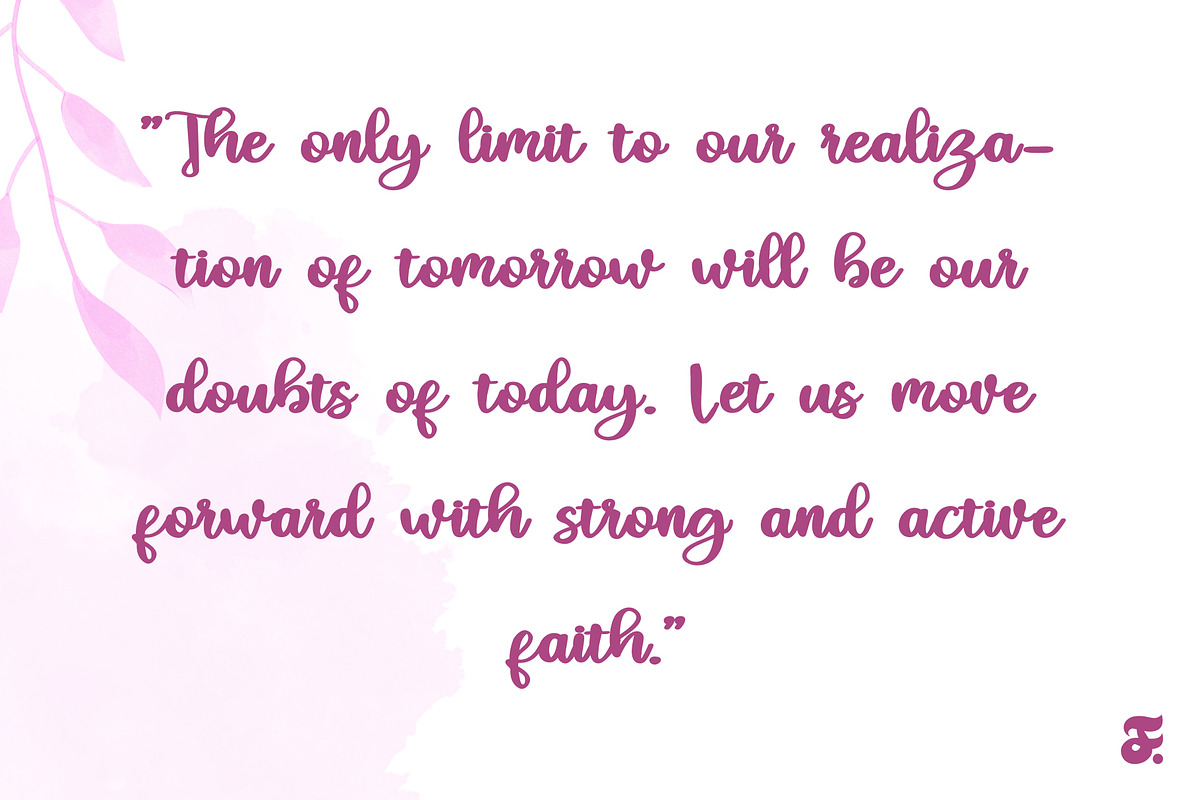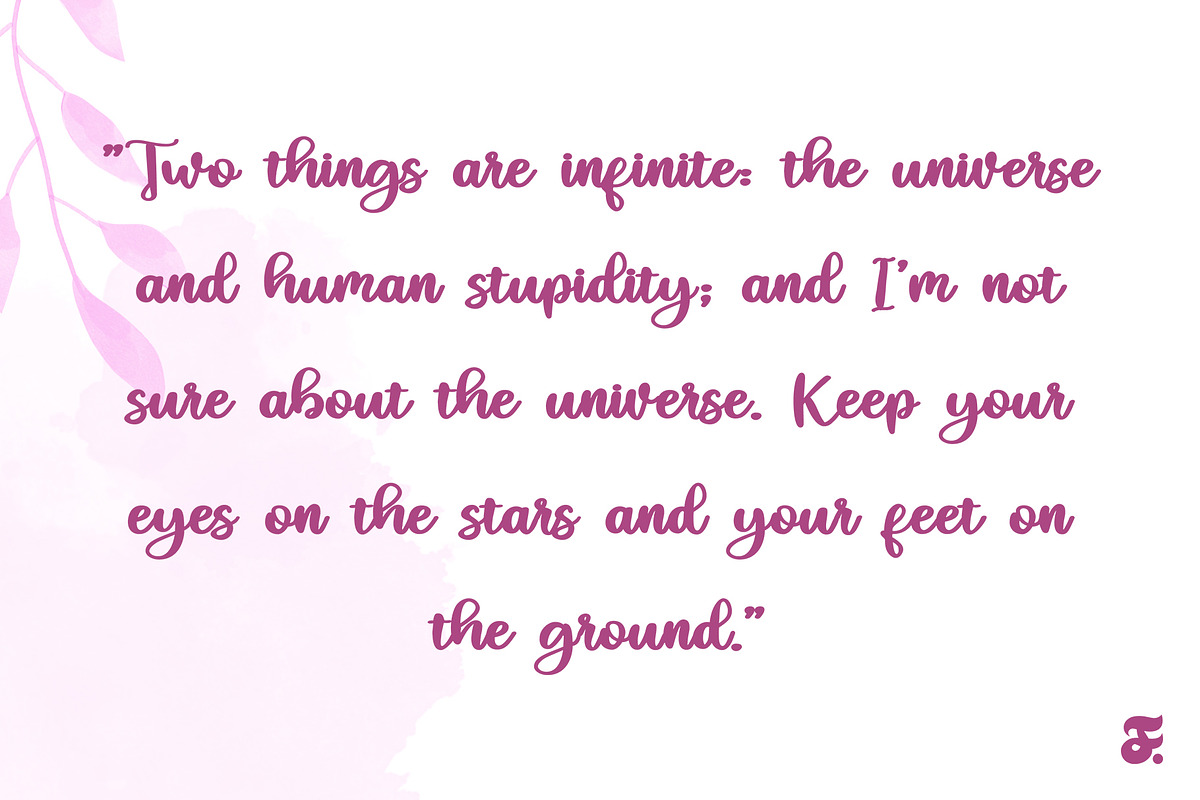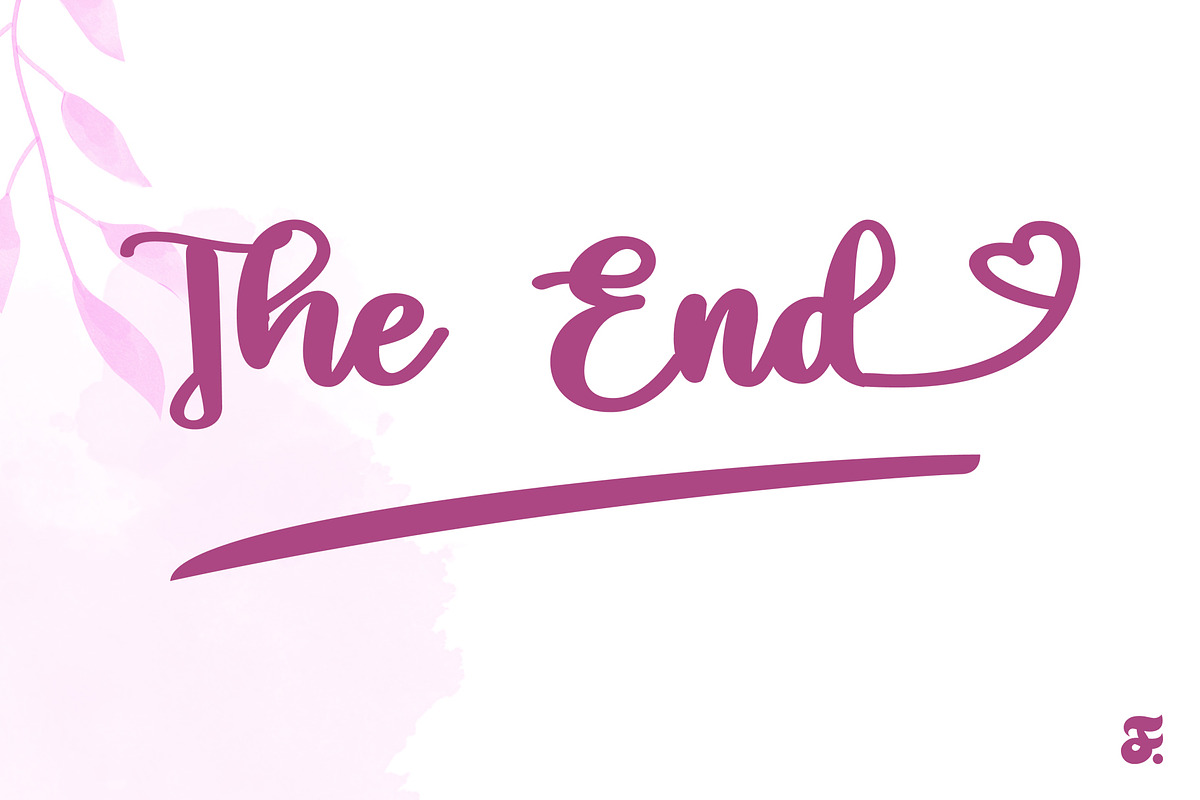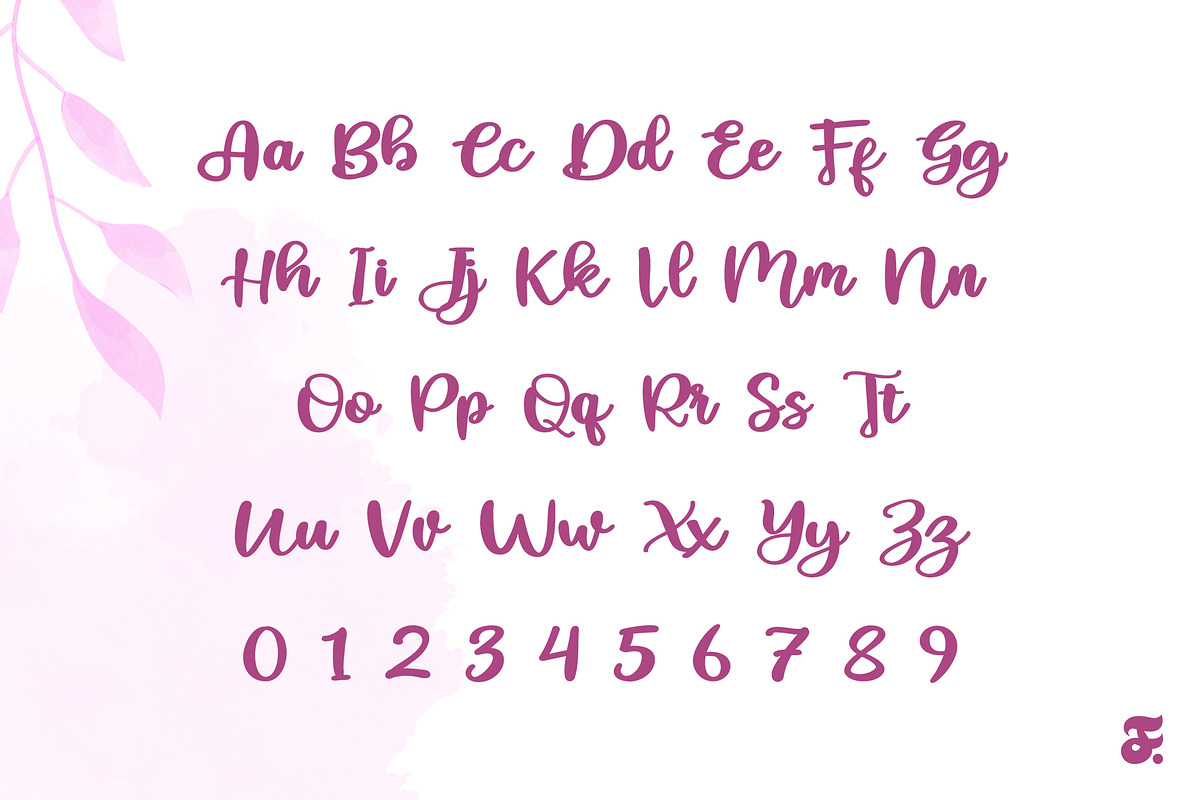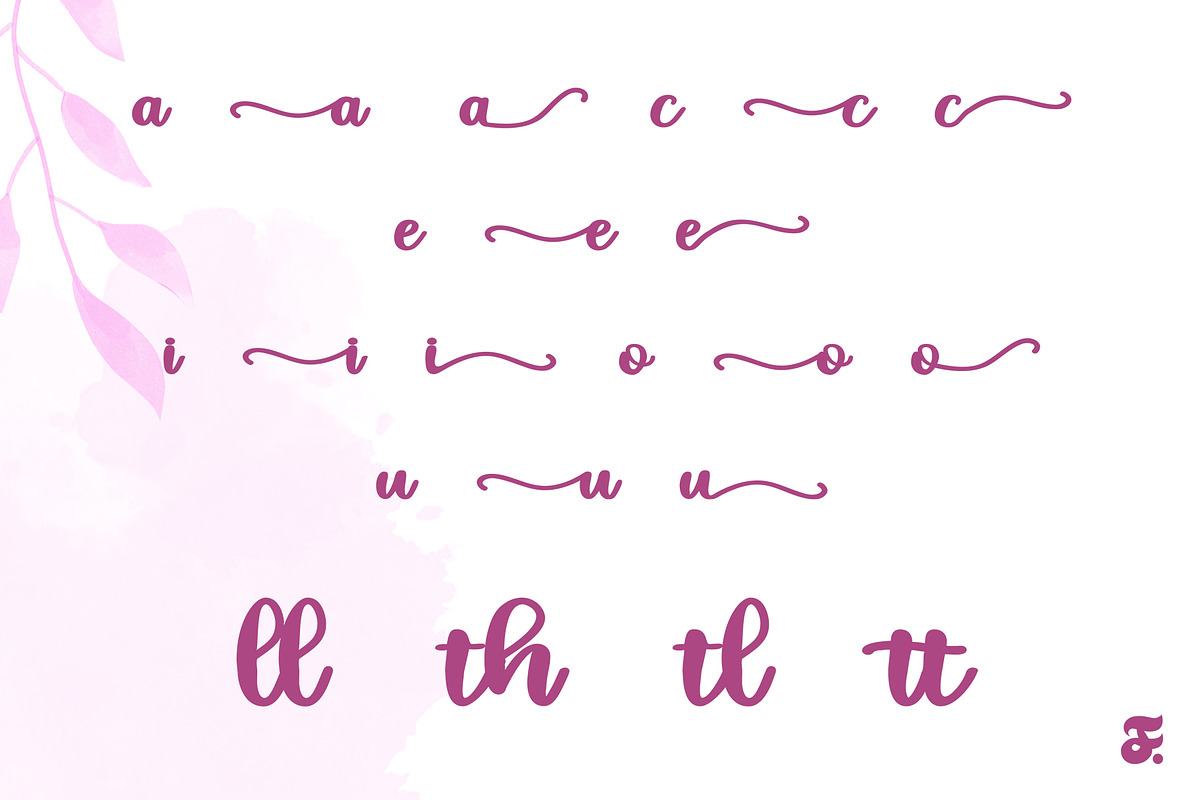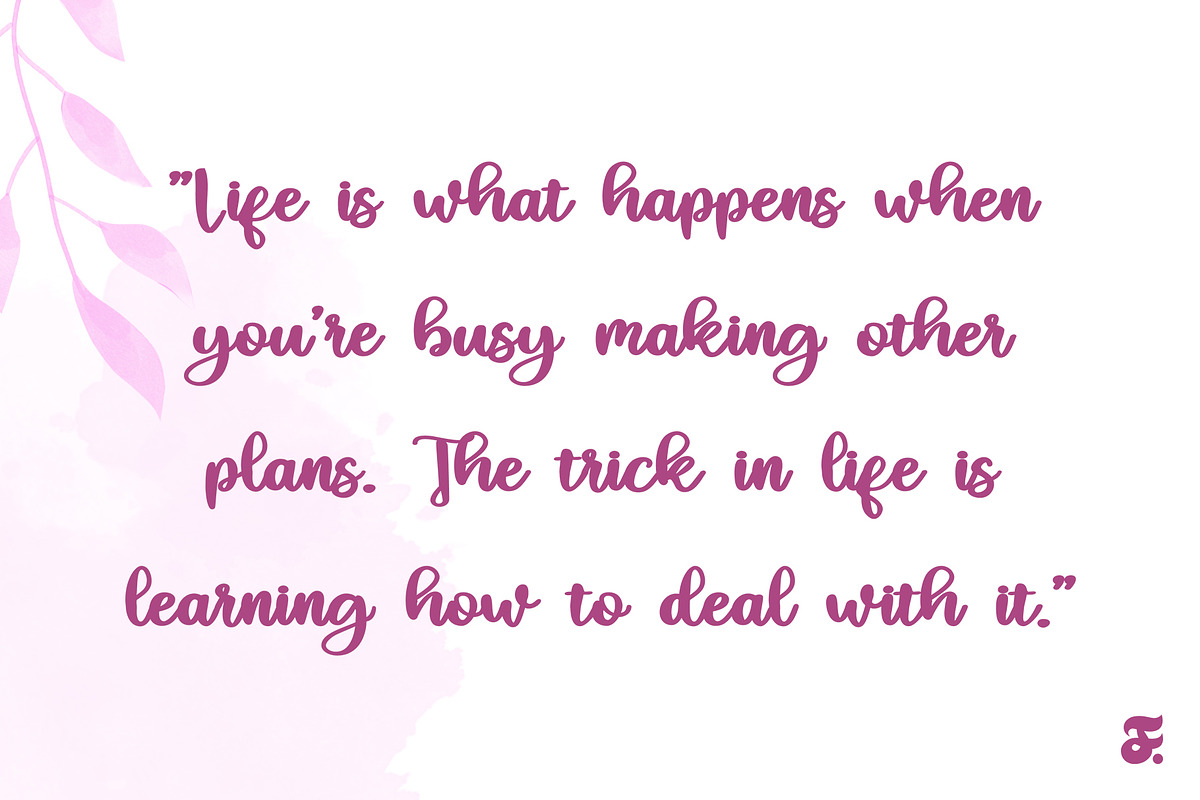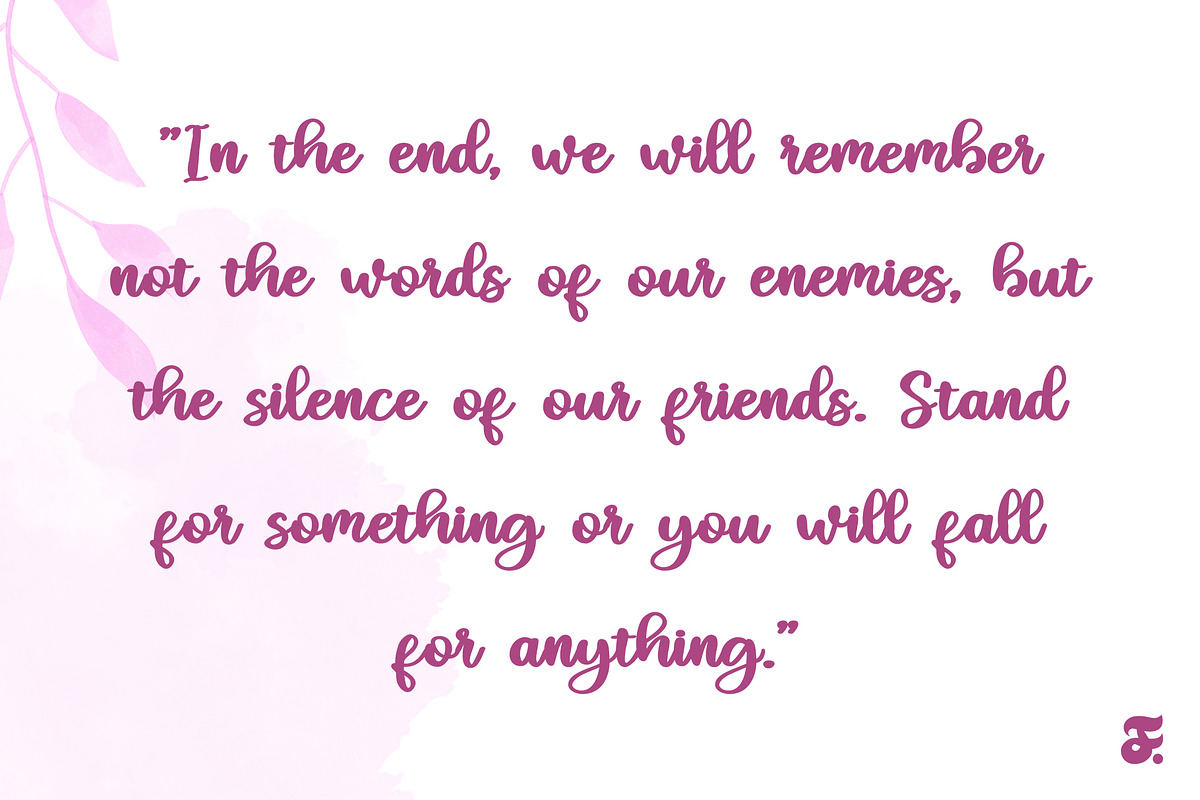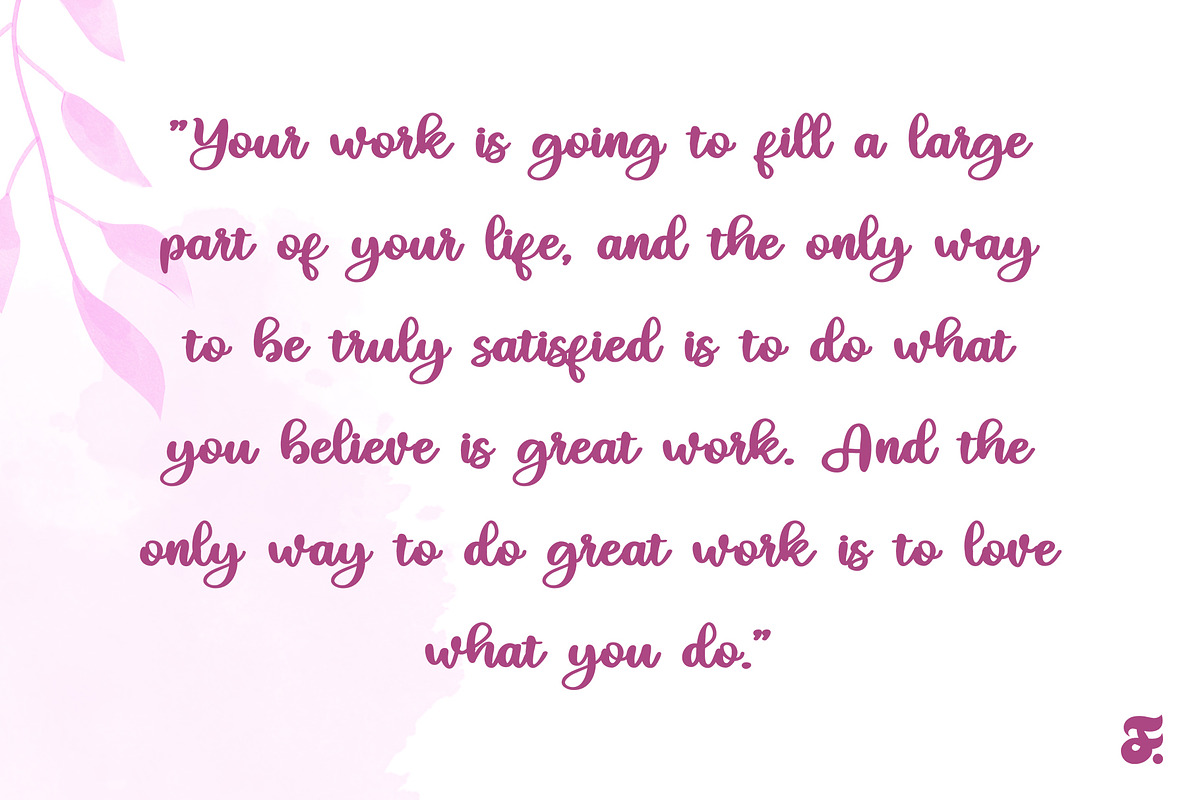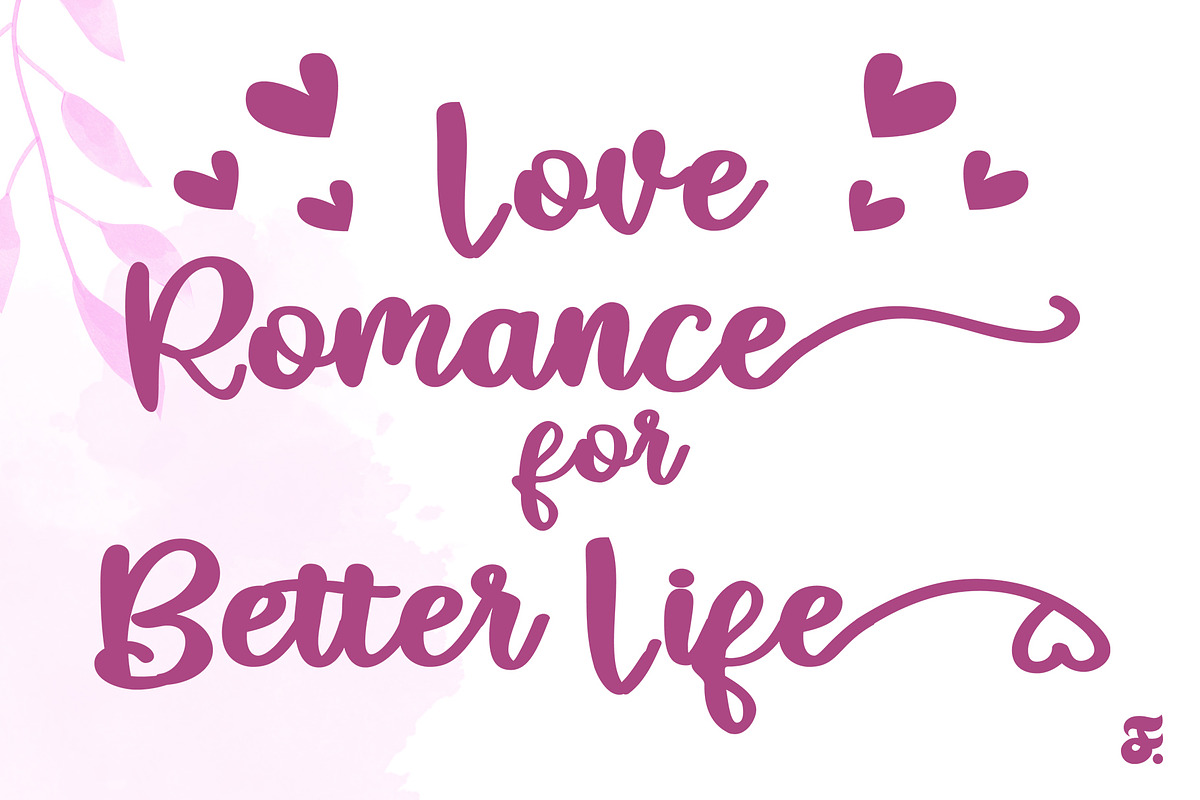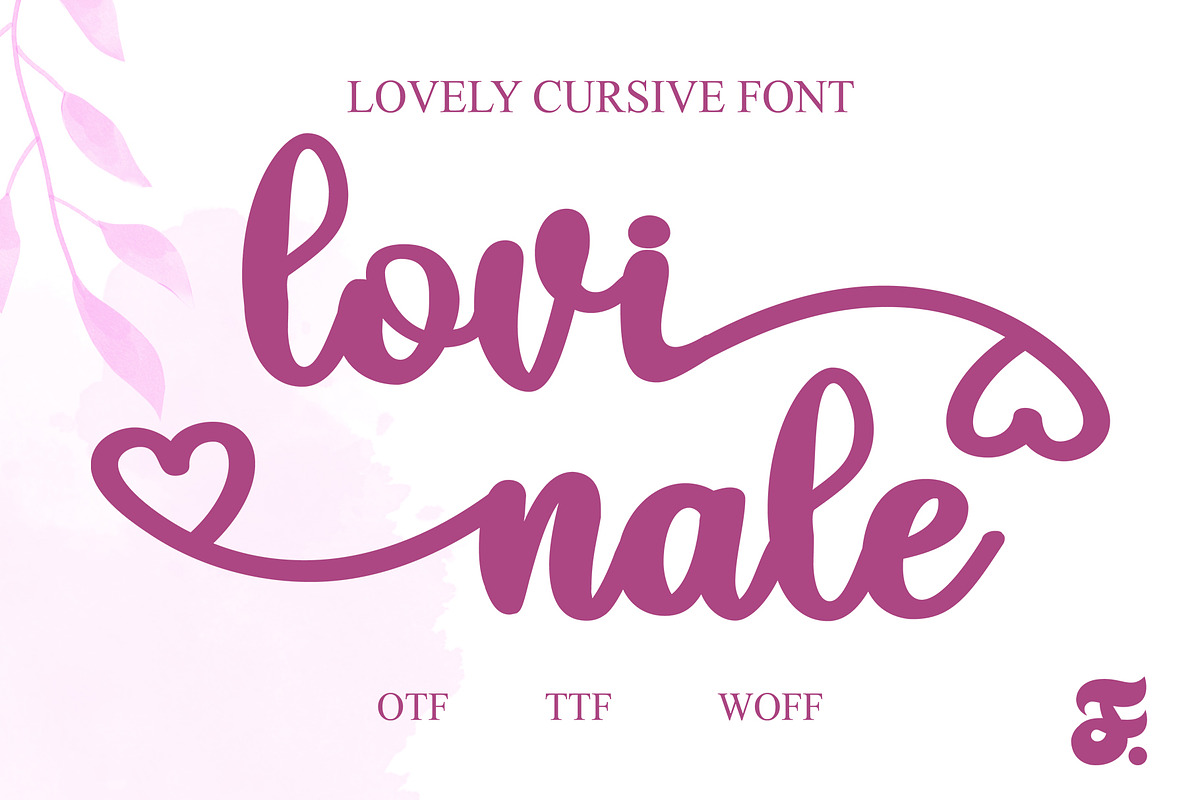
Lovinale Lovely Swirl Script
Lovinale Lovely Swirl Script weaves a delightful tapestry of romance and whimsy, inviting readers into a world where love takes center stage in the most enchanting way. The script unfolds with an elegant and flowing swirl, reminiscent of a dance between characters that mirrors the complexities and beauty of relationships. Each stroke of the Lovely Swirl Script is carefully crafted, infusing the narrative with a sense of grace and fluidity that heightens the emotional resonance of the story.
Set against a backdrop of charming landscapes and intimate moments, Lovinale's Lovely Swirl Script is a visual symphony that captures the essence of love in its various forms. The script's distinctive swirls not only serve as a stylistic choice but also symbolize the interconnectedness of the characters' lives, creating a visual language that enhances the storytelling experience. Readers will find themselves drawn into a romantic journey where every twist and turn of the Lovely Swirl Script adds layers to the narrative, creating a rich and immersive reading experience.
Lovinale Lovely Swirl Script is more than just a love story; it's a celebration of the artistry that can be achieved through script design. The careful consideration given to the swirls and their placement within the script showcases Lovinale's dedication to creating a visually stunning and emotionally resonant comic. With its unique blend of romance and artistic flair, Lovinale Lovely Swirl Script promises to be a captivating read that leaves a lasting impression on the hearts of its audience.